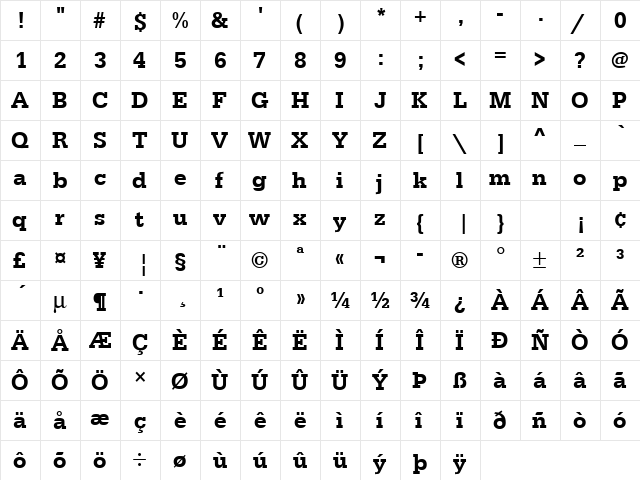
URWEgyptienneTMedNar Regular
Design Context for URWEgyptienneTMedNar Typeface
URWEgyptienneTMedNar takes a measured approach to typography — its balanced proportions and neutral character make it a reliable workhorse for both digital and print work.